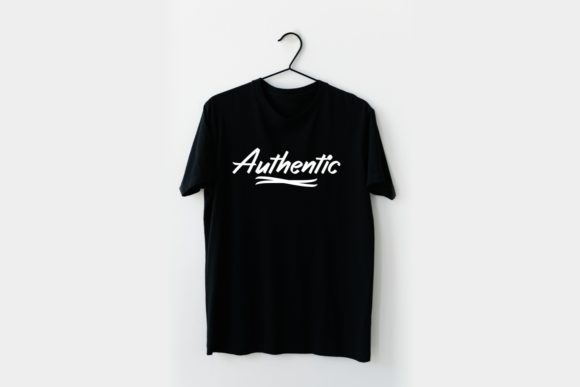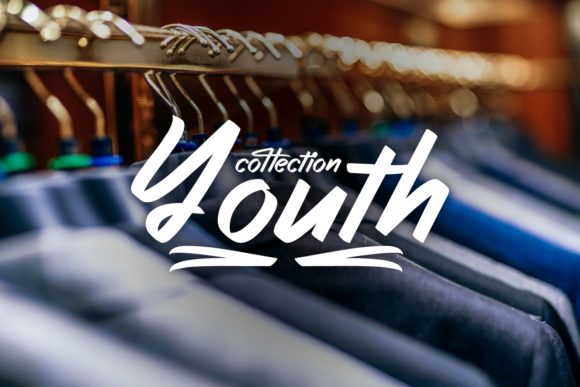
HomeScript FontsStanding Font Script Fonts Standing Font FacebookXPinterestWhatsApp Standing Font Poster 2 Standing Font Poster 3 About Standing Font Standing is a bold and modern script with a cool vibe. DOWNLOAD ON CREATIVE FABRICAThis font is sold and delivered by Creative Fabrica. Font Canyon may earn a commission if you buy through this link. People also explored Positive Thinking Font Molven Font Chalinda Font Gladly Mailed Bold Caroline Font Sunday Morning Font Little Monster Font Tegal Font 301 0 TagsStanding Font Previous articleHello Marsmallow Duo FontNext articleNicollia Font LEAVE A REPLY Cancel reply Comment: Please enter your comment! Name:* Please enter your name here Email:* You have entered an incorrect email address! Please enter your email address here Website: Save my name, email, and website in this browser for the next time I comment. Personal Use Free Awesome Snowflakes Font Personal Use Free Read more about this font Mowgli Personal Use Free Read more about this font Old Linoleum Personal Use Free Read more about this font Rozalyn Personal Use Free Read more about this font BLOG To increase your work productivity, choose the most readable fonts. In today's fast-paced work environment, where digital communication and information consumption are integral to our daily routines, the choice of fonts can significantly impact... Top 7 Google Fonts Alternatives for Faster and Privacy-Friendly Web Design (2025) Top 10 Handwritten Fonts That Elevate Your Designs Transform Your Website: Elevate Your Typography with 7 Best Web Font Generators